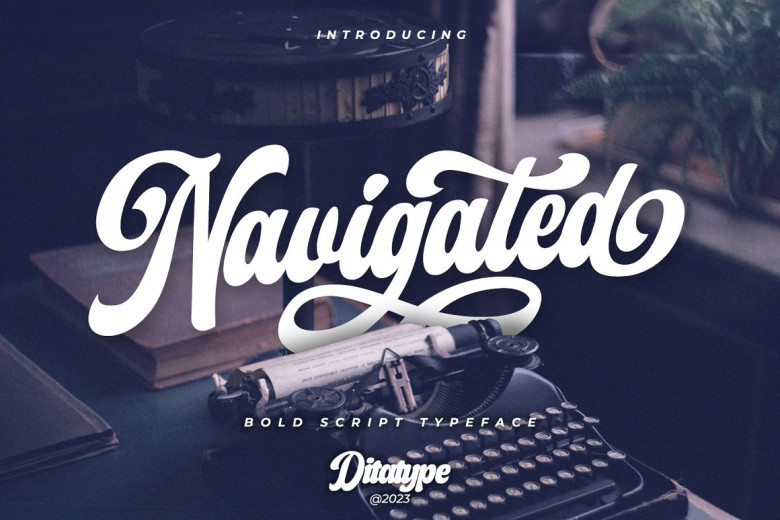
Navigated Font
Navigated is an exquisite script font that perfectly balances strength and asymmetry. Featuring its distinctive connected letterform style, in which each letter carefully interconnects for an elegant yet fluid aesthetic. With uniform proportions and minimalist style, it offers stability, ease of use, sturdiness and is suitable for a range of design applications.
Navigated’s design not only adds a splash of style, but it’s also possible to notice stunning swinging endings for certain letters bringing elegance and dynamism to your text. These elegant flourishes add charm and grace that stands out as stunning visual appeal – plus you can also take advantage of all its features!
Navigated Bold Script Font